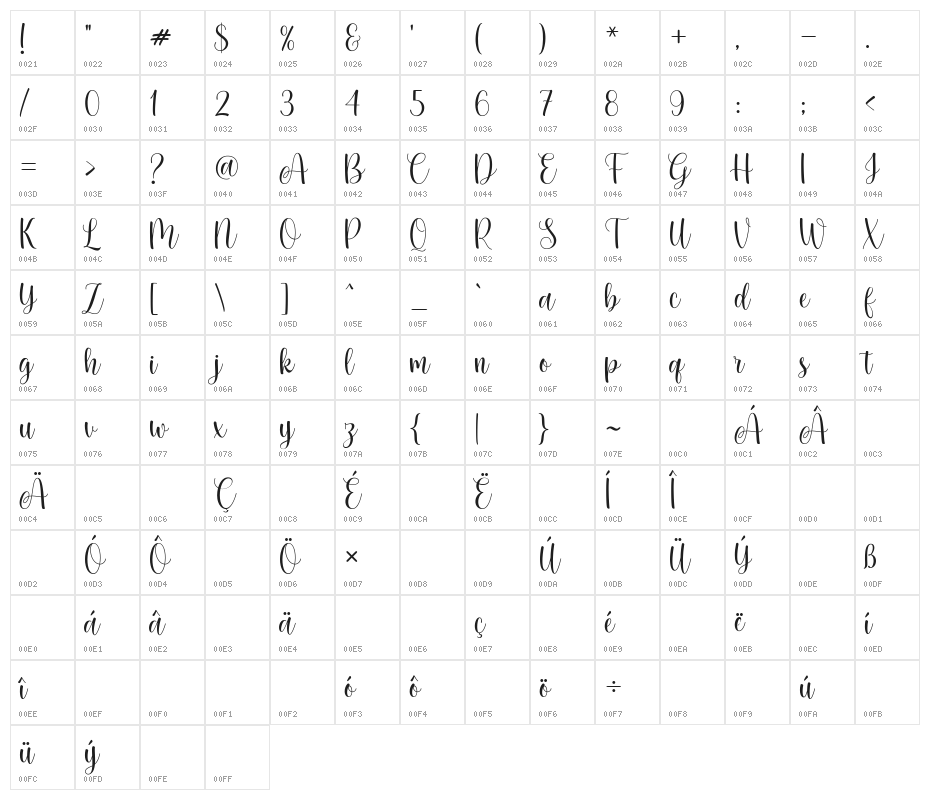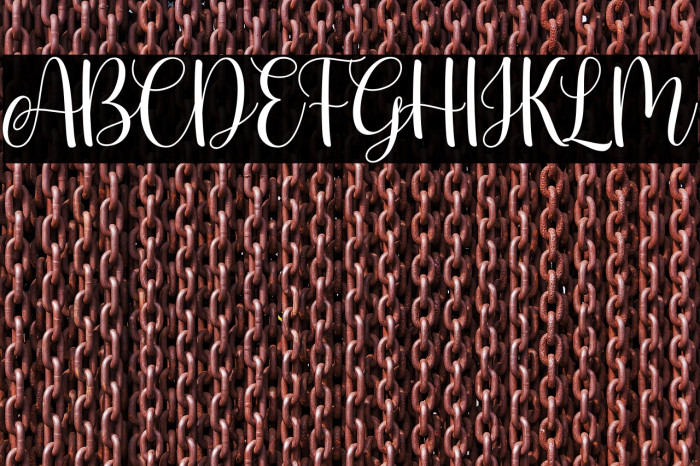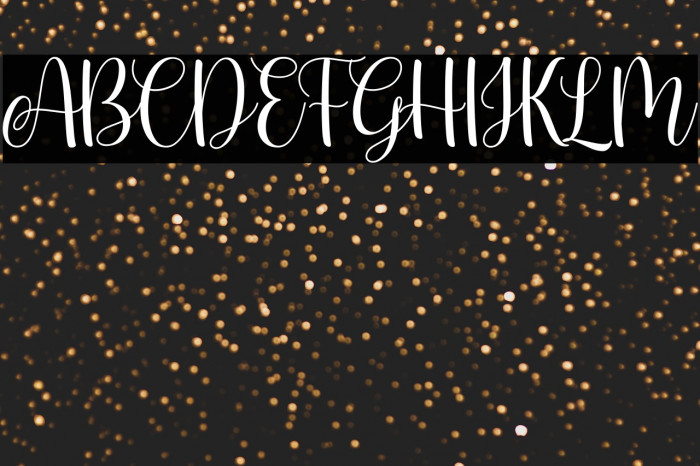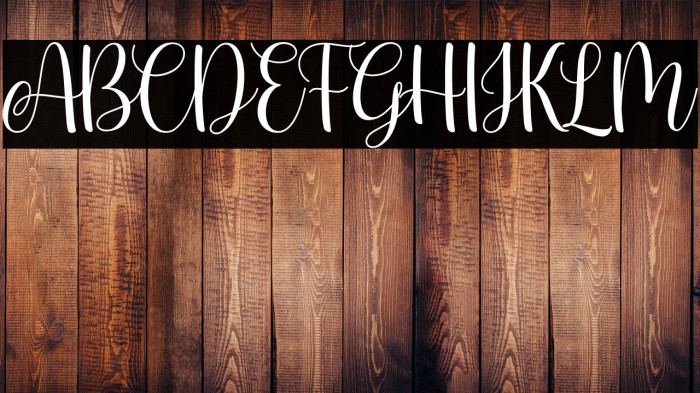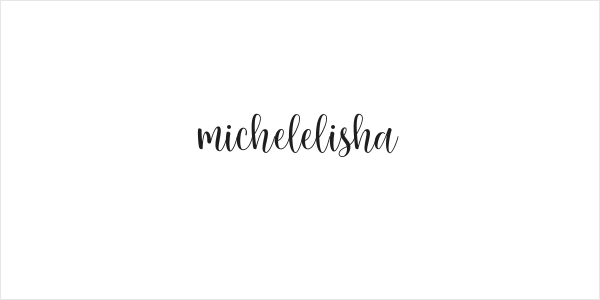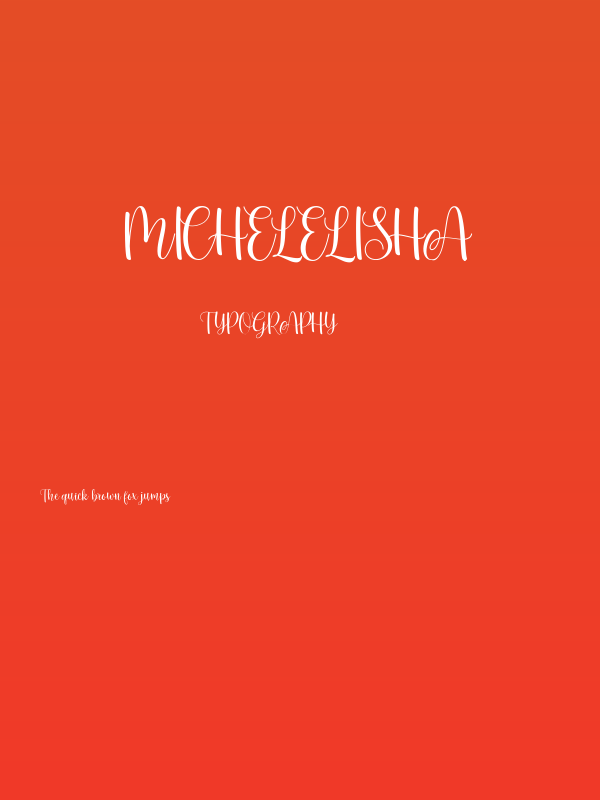
michelelisha Font
michelelisha Description
This font features an elegant and flowing script style, characterized by its smooth, cursive strokes and graceful loops. The uppercase letters are ornate with a distinct flair, while the lowercase letters maintain a consistent fluidity, making it visually appealing and easy to read. The numbers and special characters complement the overall design with their harmonious curves and balanced proportions. This font exudes a sense of sophistication and charm, perfect for creating a refined and stylish look.